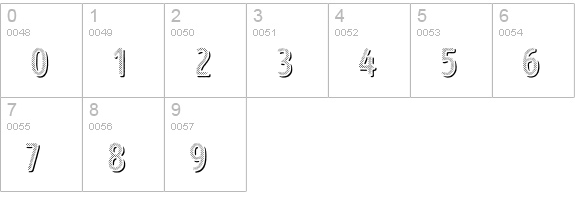
Intro Head B H1 Shade Font Details
The Intro Head B H1 Shade font is a captivating display typeface that exudes elegance and sophistication. Its bold and stylish design makes it perfect for creating eye-catching headlines, titles, and logos. The unique shading effect adds depth and dimension to your text, making it stand out from the crowd. This versatile font is suitable for a wide range of design projects, from posters and banners to packaging and branding. Whether you're working on a modern or classic design, the Intro Head B H1 Shade font will add a touch of luxury and sophistication to your work. Best of all, this stunning font is available for free download at FontsMarket.com. So go ahead and elevate your designs with the Intro Head B H1 Shade font today!